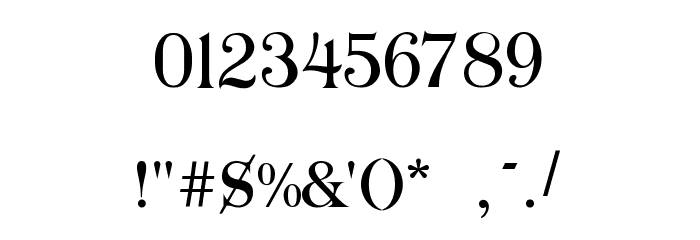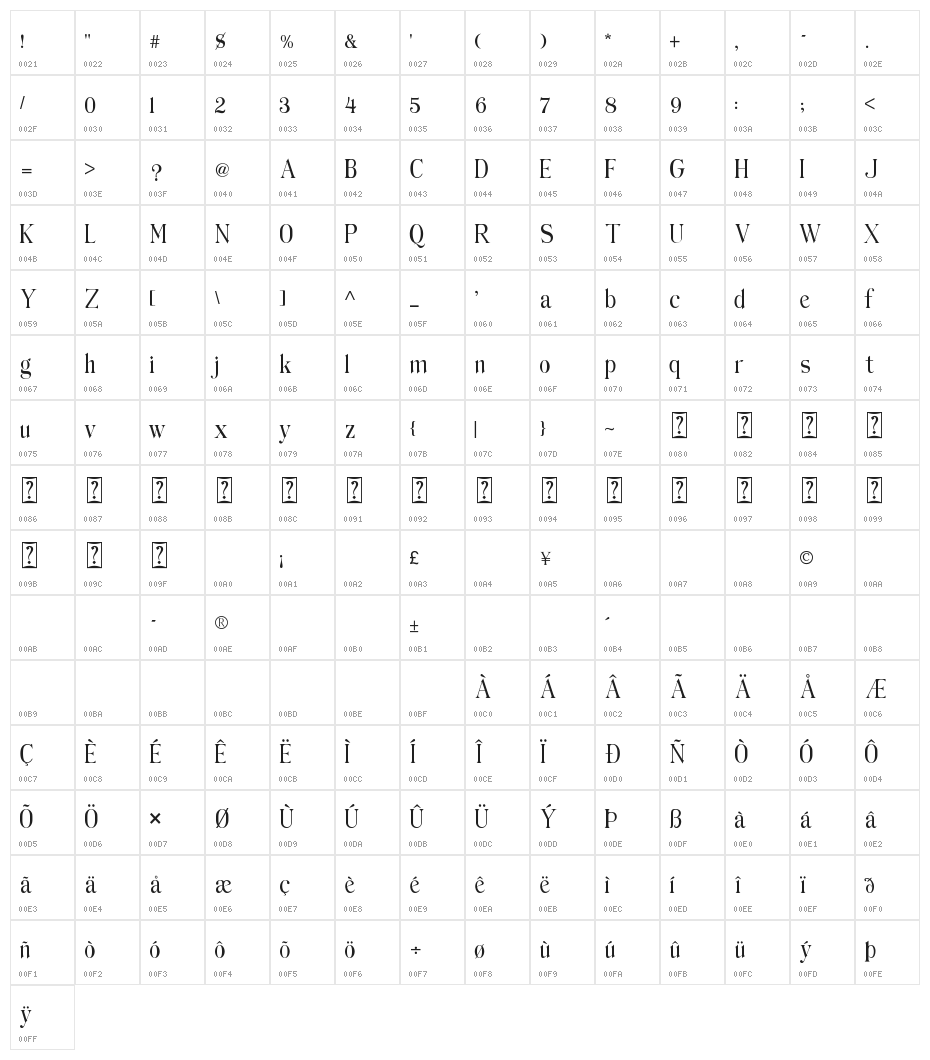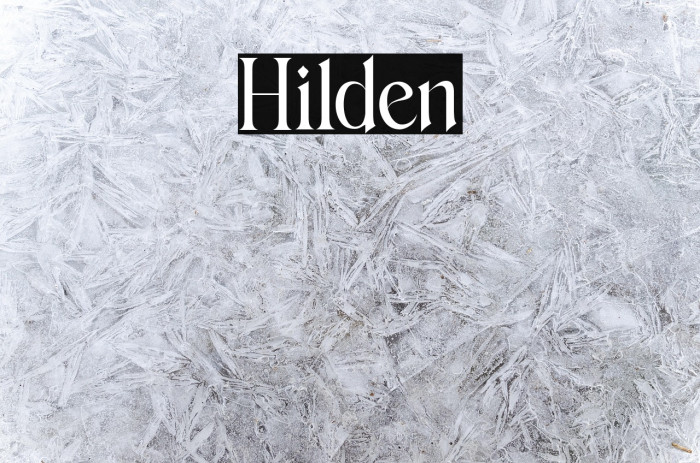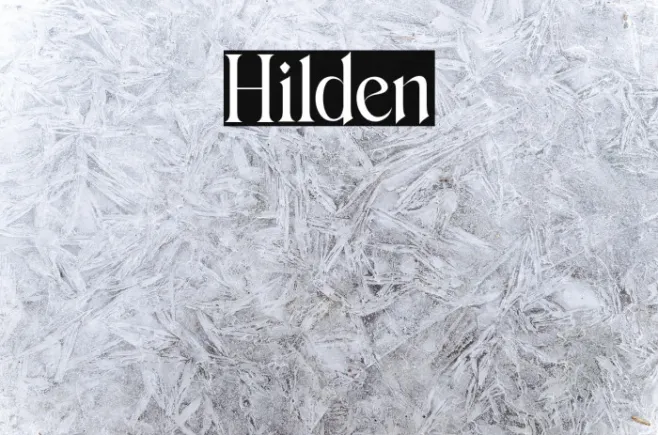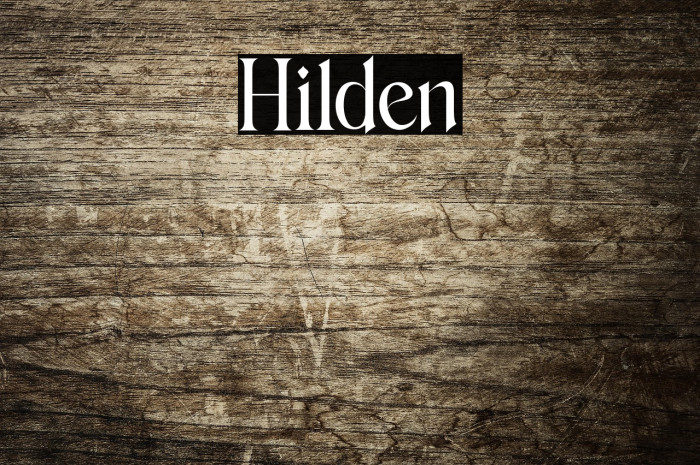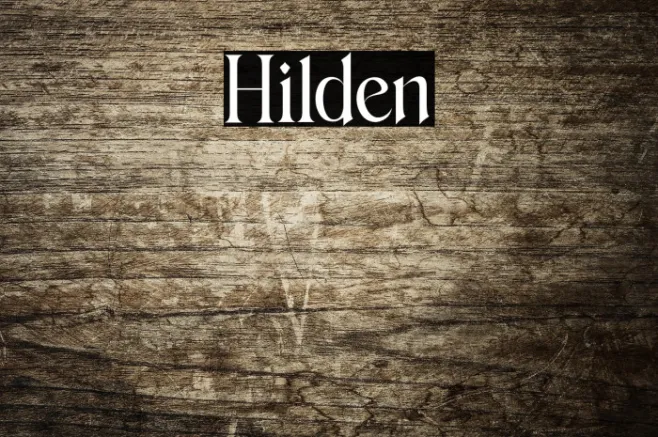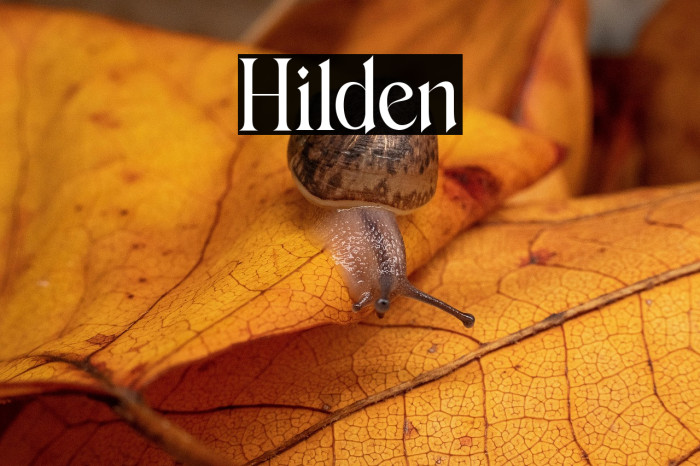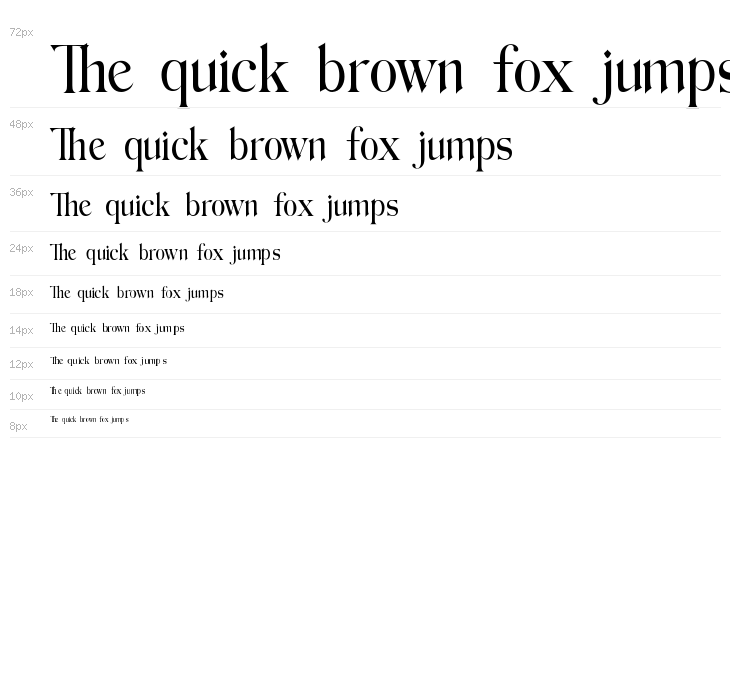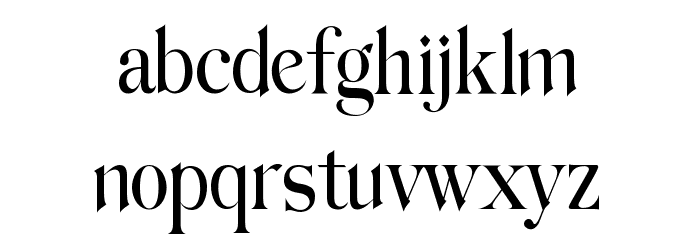
Hilden Font
Hilden Description
This font features a classic serif style with elegant, elongated strokes and a refined appearance. The uppercase letters are bold and commanding, while the lowercase letters maintain a consistent flow with slightly curved serifs. The numerals are well-proportioned, offering a harmonious balance with the alphabet. Special characters are distinct and maintain the overall aesthetic of the font. The design is suitable for formal and sophisticated applications, where readability and elegance are paramount.
| Proposed Projects | Ideal for book covers, formal invitations, branding for luxury products, and editorial design. |